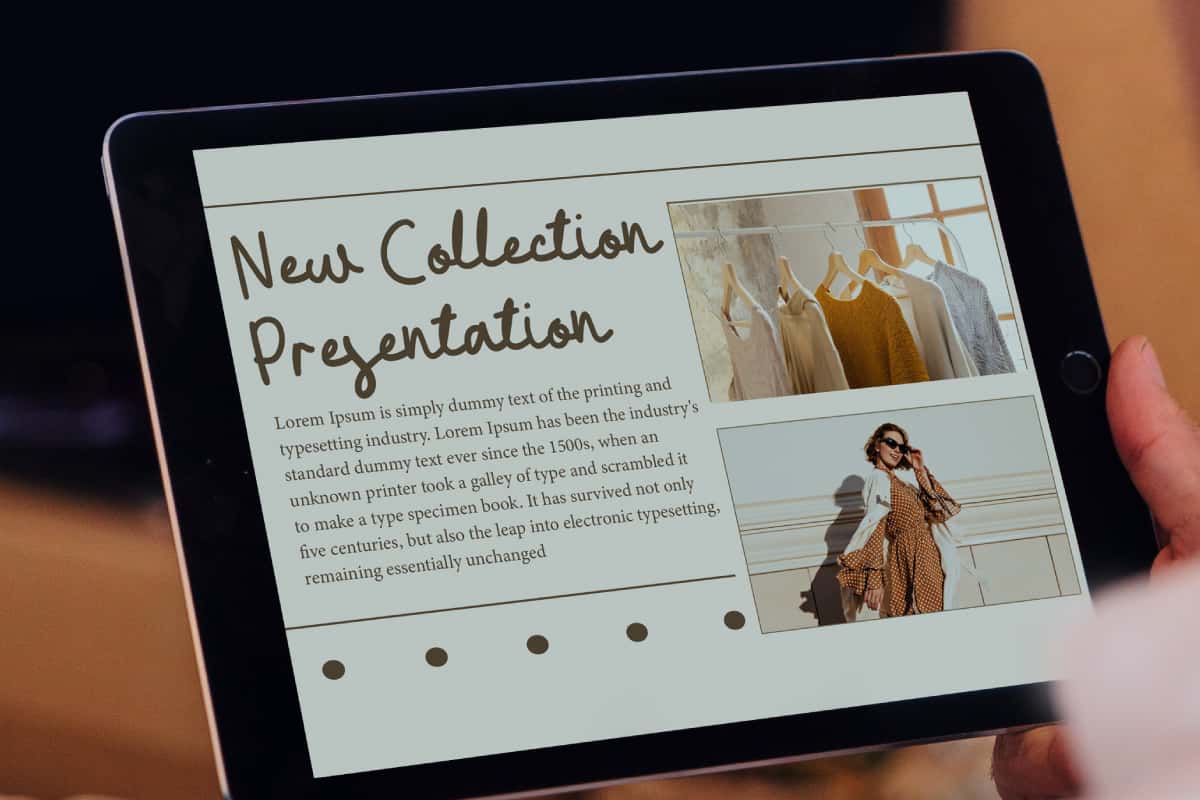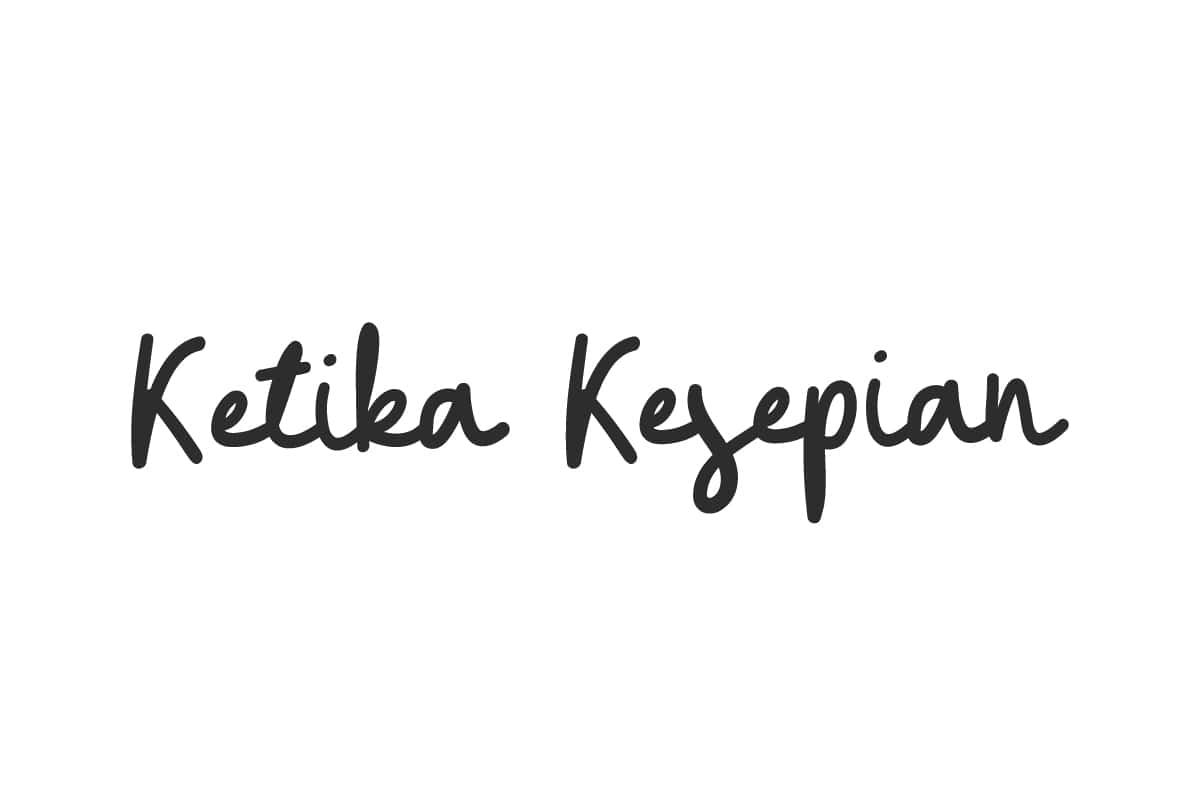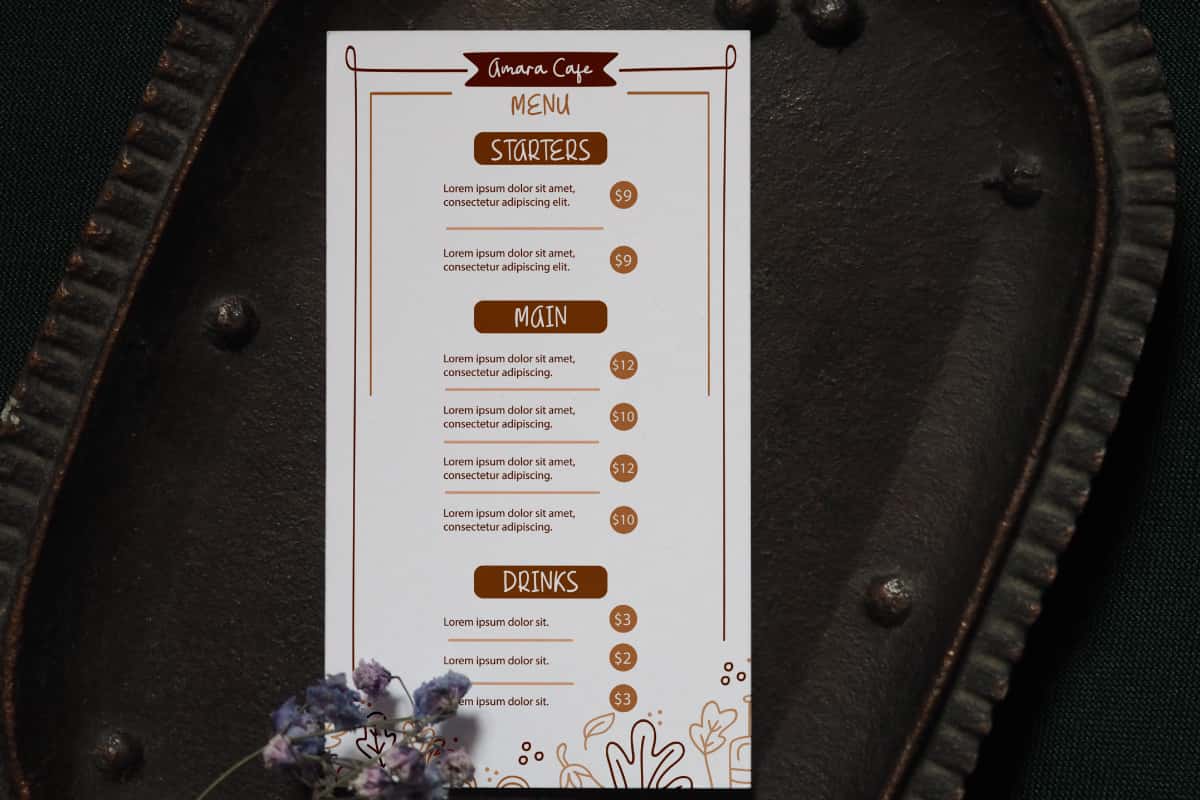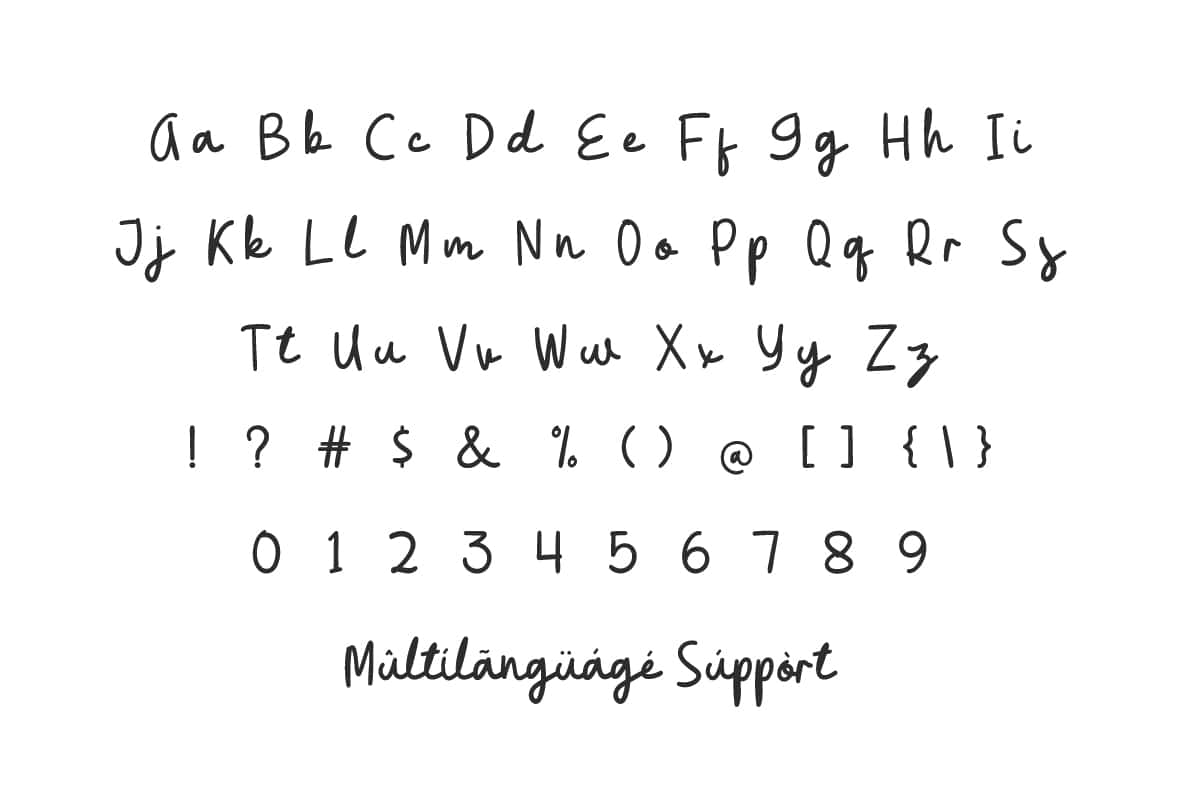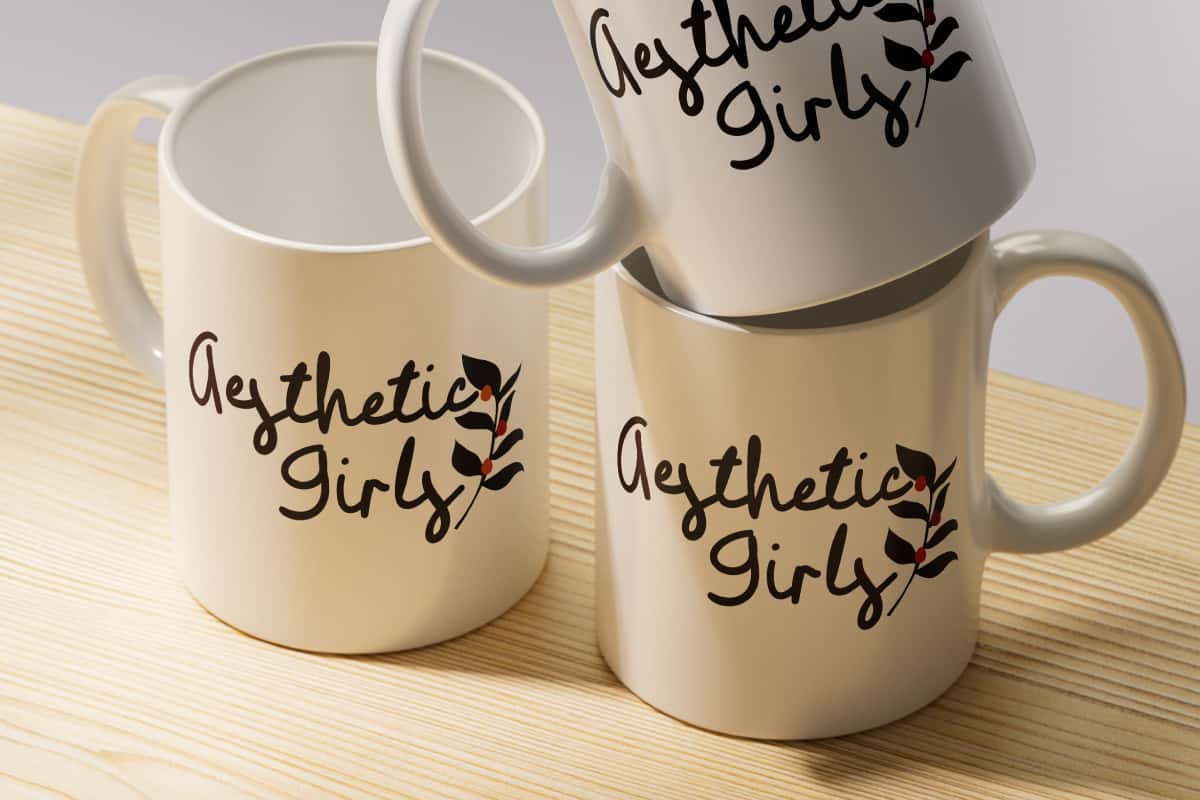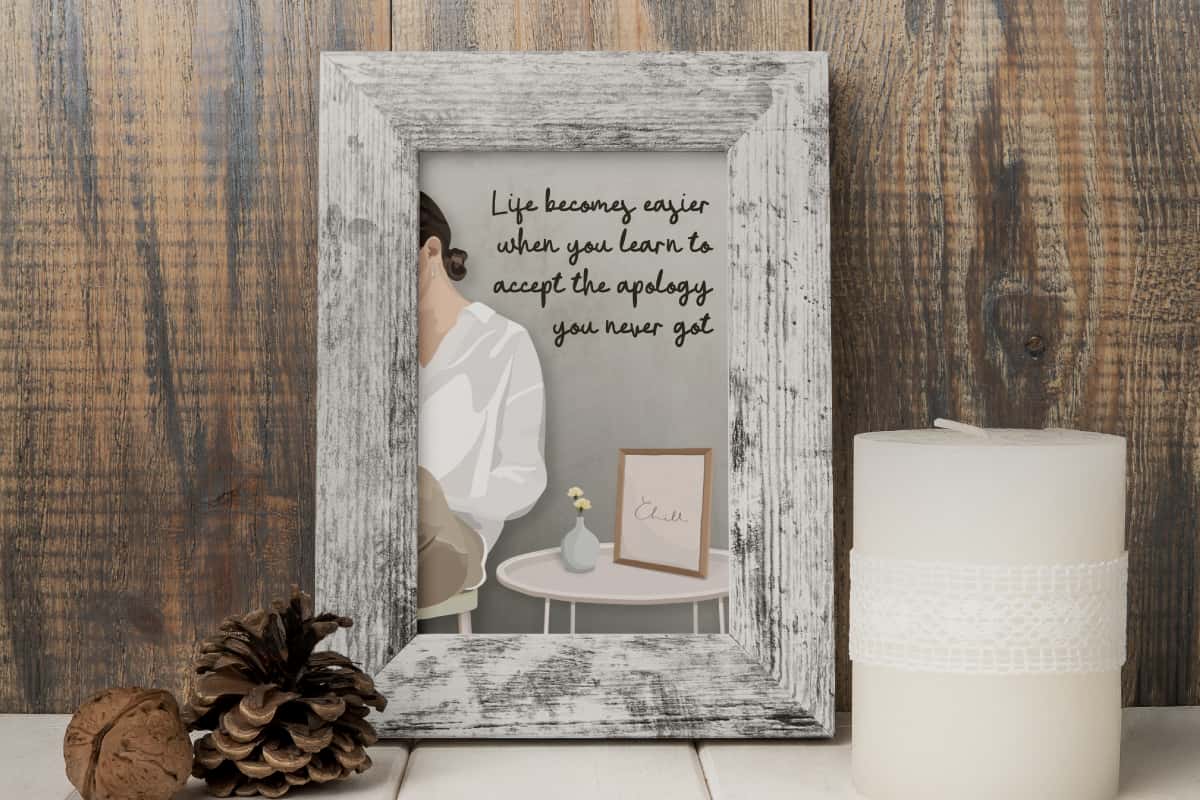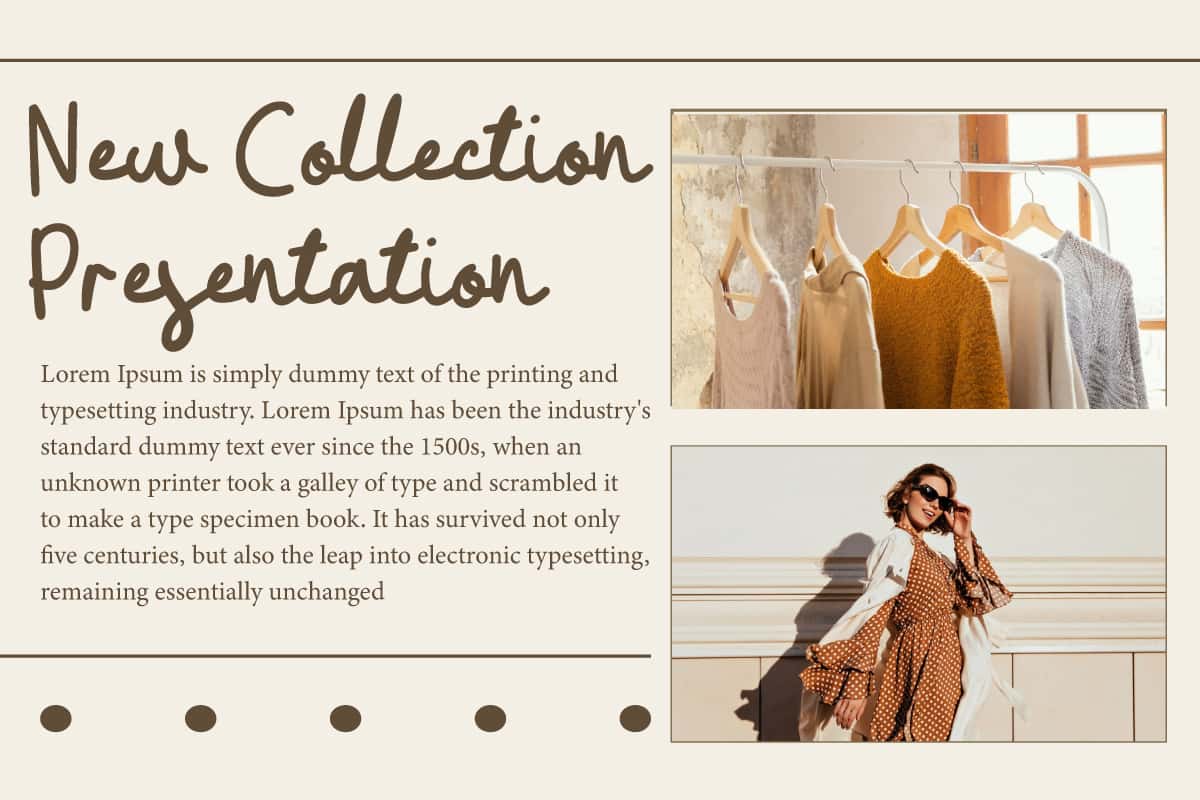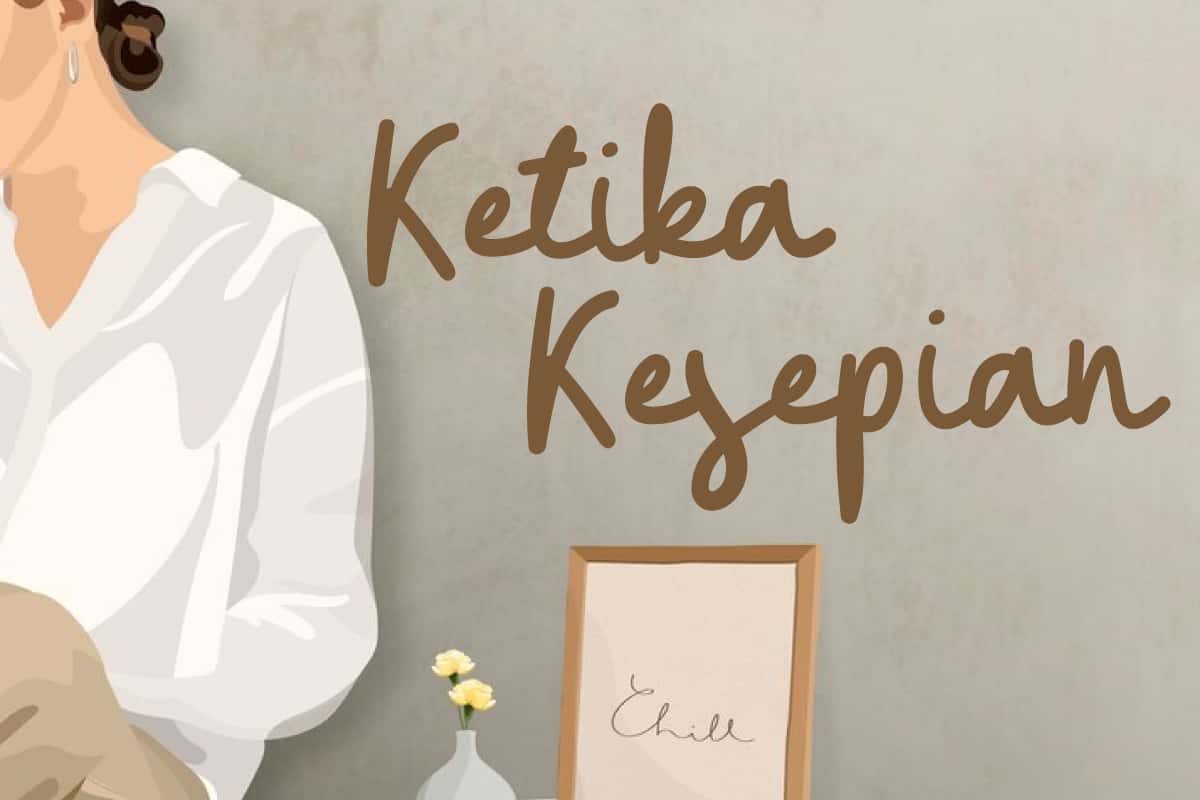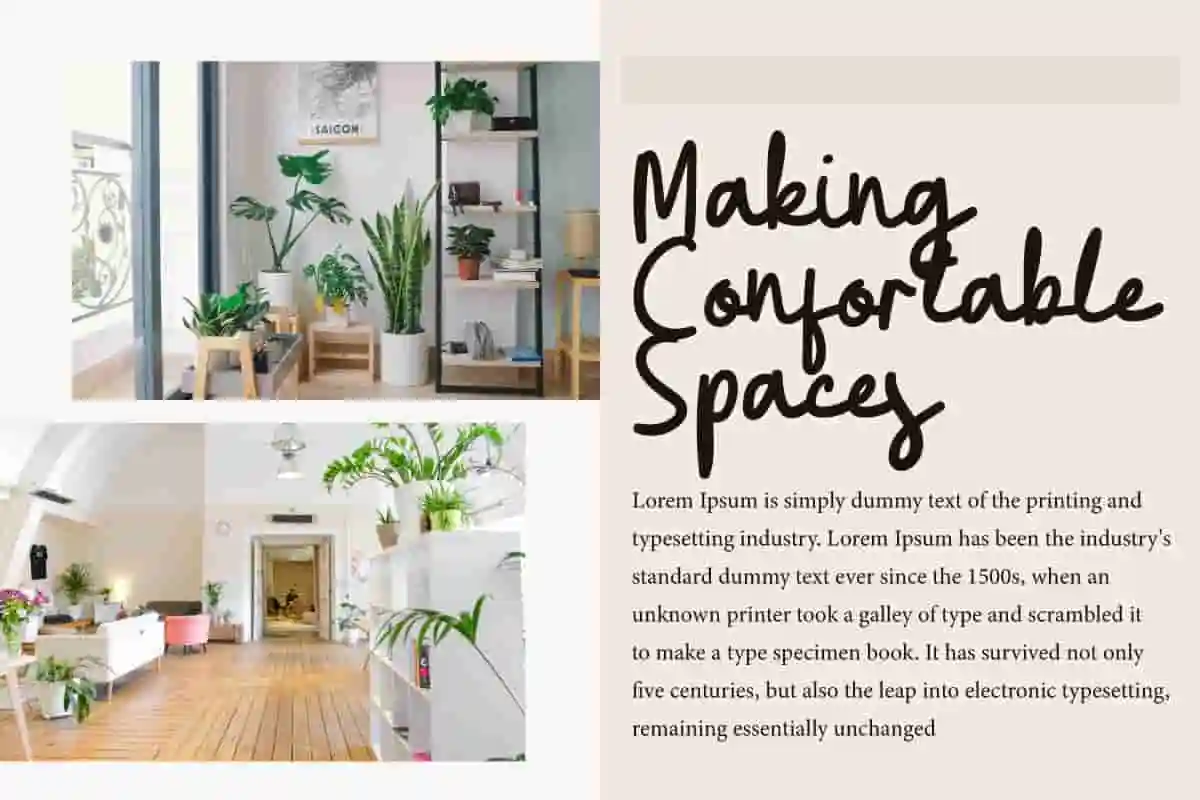
Ketika Kesepian Font is a bold pen writing font that resembles a brush with natural edges and pleasing shape. It offers flexibility and charm!
Ketika Kesepian Font is a relaxed a bold pen writing font handwriting font with an easy going touch, making it look like natural handwriting. Perfect for banners, blogs, brochure, covers, custom mug, flyer, greeting card, headers, label, logos, mockup, quotes, social media post, stationery, sticker, template, title, website, and much more.
Ketika Kesepian Font includes a complete set of Basic Uppercase and Lowercase Characters, Numbers, Punctuation, and Symbols. With countless combination of different characters to create the look you want! Use this font for accessories and gifts, author, boutique, fashion, florist, graphic designer, handicraft, home furniture, photography, pottery, wedding, writer, etc.